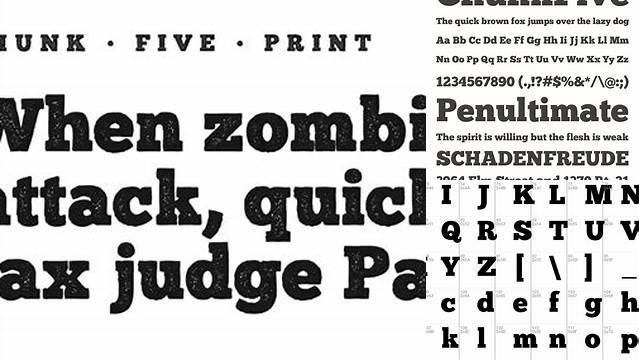
Chunkfive Font: Free Download & Usage Guide
Are you looking to download Chunkfive font for free? Well, you've come to the right place! Chunkfive is a distinctive, slab-serif typeface that's become a favorite among designers for its bold, vintage aesthetic. In this comprehensive guide, we'll dive deep into everything you need to know about Chunkfive, including its history, design characteristics, common uses, and, most importantly, where you can find legitimate and safe free downloads. We'll also explore some similar fonts if Chunkfive doesn't quite fit your project needs, and provide tips for using it effectively in your designs.
What is Chunkfive Font?
Let's start with the basics. Chunkfive is a slab-serif font created by the talented designer Meredith Mandel. Released in 2008, it quickly gained popularity due to its resemblance to classic wood type fonts used in vintage posters and advertisements. Its robust, rectangular serifs and sturdy letterforms evoke a sense of retro charm, making it ideal for projects that aim to capture a nostalgic feel. The font's design gives it a strong, confident presence, making it suitable for headlines, logos, and display typography. Its simplicity also ensures legibility, even at smaller sizes, which enhances its versatility.
The unique character of Chunkfive lies in its ability to blend the old and the new. While it draws inspiration from vintage typography, its clean lines and balanced proportions give it a contemporary edge. This makes it a versatile choice for a wide range of design applications, from print to web. Designers appreciate Chunkfive for its ability to add a touch of personality and authenticity to their projects. Whether you're working on a vintage-themed poster, a rustic logo, or a website with a retro vibe, Chunkfive can help you achieve the desired look and feel.
Furthermore, Chunkfive's open-source nature has contributed to its widespread adoption. Being available under a free license, it has allowed designers to incorporate it into both personal and commercial projects without the burden of licensing fees. This accessibility has fostered a vibrant community around the font, with designers sharing their creative uses and adaptations of Chunkfive. As a result, the font has evolved over time, with various modifications and extensions being created by the community to suit different design needs. Whether you're a seasoned designer or just starting, Chunkfive offers a versatile and accessible option for adding a touch of vintage flair to your projects.
Key Characteristics of Chunkfive
Understanding the key characteristics of Chunkfive font is essential for using it effectively in your designs. Here's a breakdown of what makes this font so unique:
- Slab-Serif Design: The most prominent feature of Chunkfive is its slab serifs – the thick, rectangular extensions at the ends of the strokes. These serifs give the font a strong, grounded appearance and contribute to its overall vintage aesthetic.
- Bold Letterforms: Chunkfive features sturdy, bold letterforms that command attention. This makes it ideal for headlines, titles, and other display purposes where a strong visual impact is desired.
- Clean Lines: Despite its vintage inspiration, Chunkfive boasts clean, well-defined lines that contribute to its legibility. This ensures that the font remains readable even at smaller sizes.
- Retro Aesthetic: Chunkfive evokes a sense of nostalgia with its vintage-inspired design. It's perfect for projects that aim to capture a retro or rustic feel.
- Versatile: While it excels in vintage-themed designs, Chunkfive's versatility allows it to be used in a variety of contexts. It can be incorporated into modern designs to add a touch of personality and character.
By understanding these key characteristics, you can leverage Chunkfive's unique attributes to create visually appealing and effective designs. Whether you're working on a vintage-inspired poster, a rustic logo, or a website with a retro vibe, Chunkfive can help you achieve the desired look and feel. Its bold letterforms, clean lines, and retro aesthetic make it a versatile choice for a wide range of design applications.
In conclusion, Chunkfive font is a fantastic choice for designers looking to add a touch of vintage charm to their projects. Its bold, slab-serif design makes it ideal for headlines, logos, and other display purposes. By following the tips and best practices outlined in this guide, you can use Chunkfive effectively to create visually appealing and engaging designs. Remember to download it from reputable sources, verify the license, and pair it wisely with other fonts. And if Chunkfive isn't quite the right fit, don't hesitate to explore the many alternative slab-serif fonts available. Happy designing, guys!